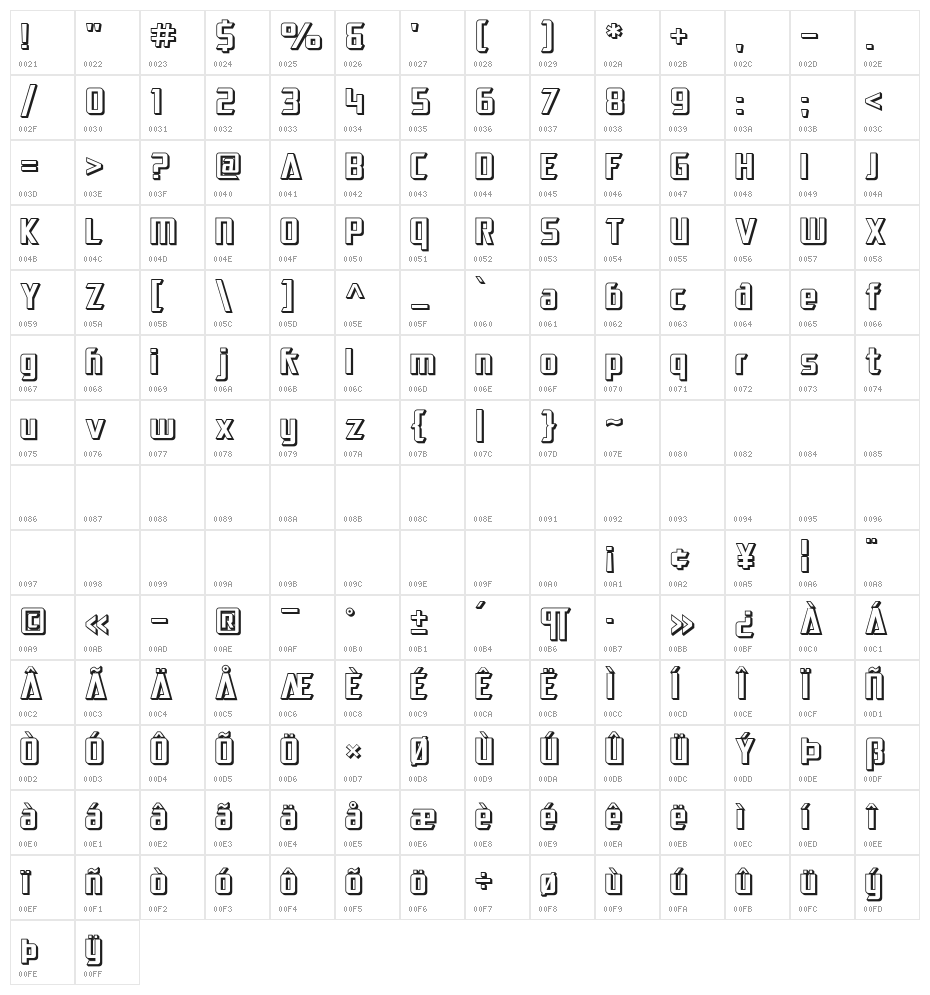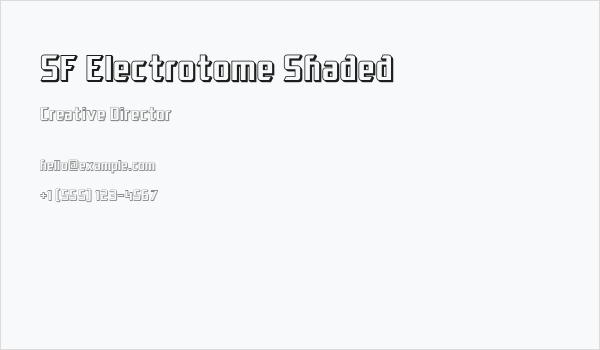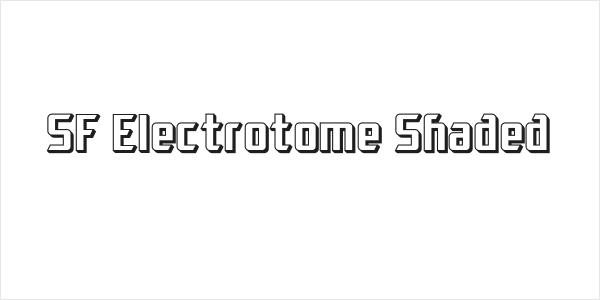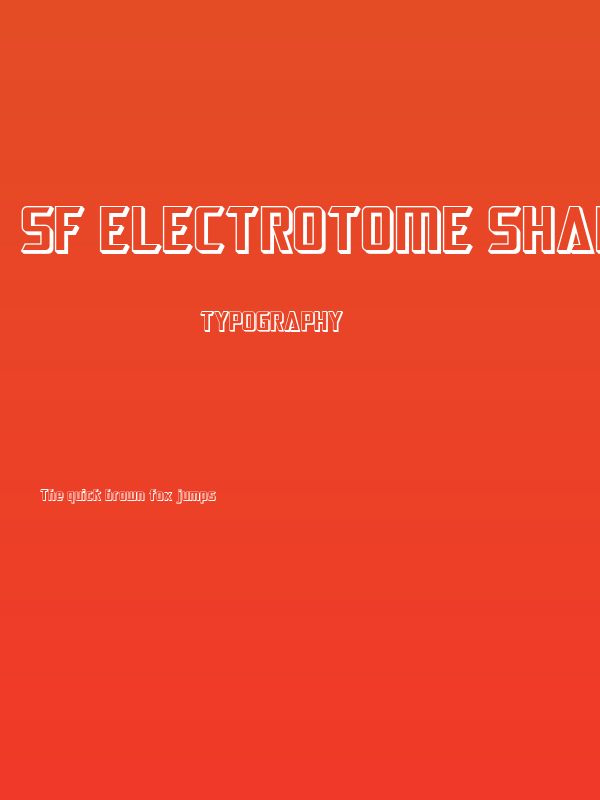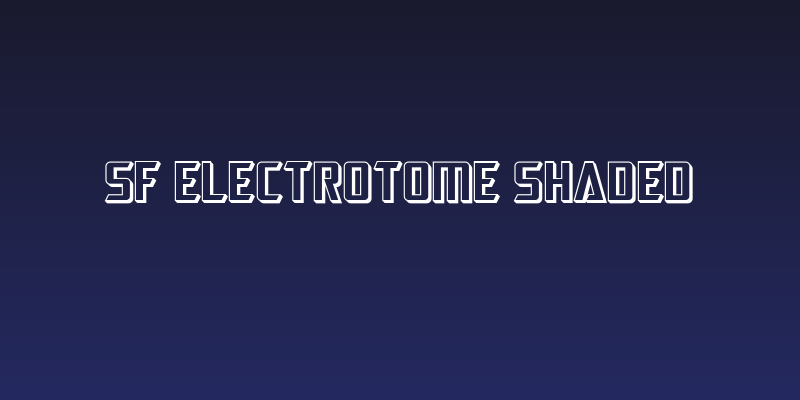
SF Electrotome Shaded Font
SF Electrotome Shaded Description
This font features a bold, geometric design with a distinct three-dimensional effect created by its shaded outline. The characters are structured with sharp angles and clean lines, giving it a futuristic and technical appearance. The uppercase and lowercase letters maintain a consistent style, with a uniform height and width that enhances readability. Numbers and special characters follow the same design principles, ensuring a cohesive look across all text elements. The font's unique shading adds depth, making it stand out in any design project.
| Proposed Projects | Perfect for technology-themed projects, video game titles, posters, and branding that requires a modern, edgy look. |